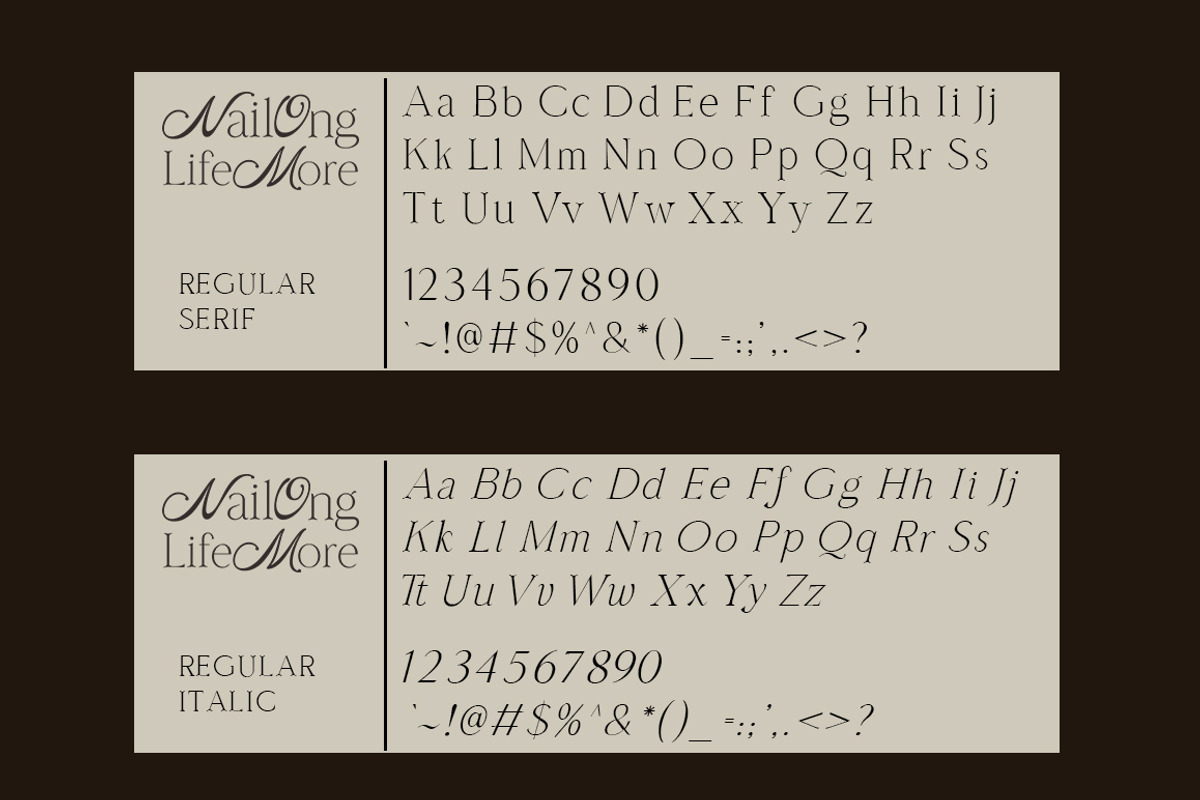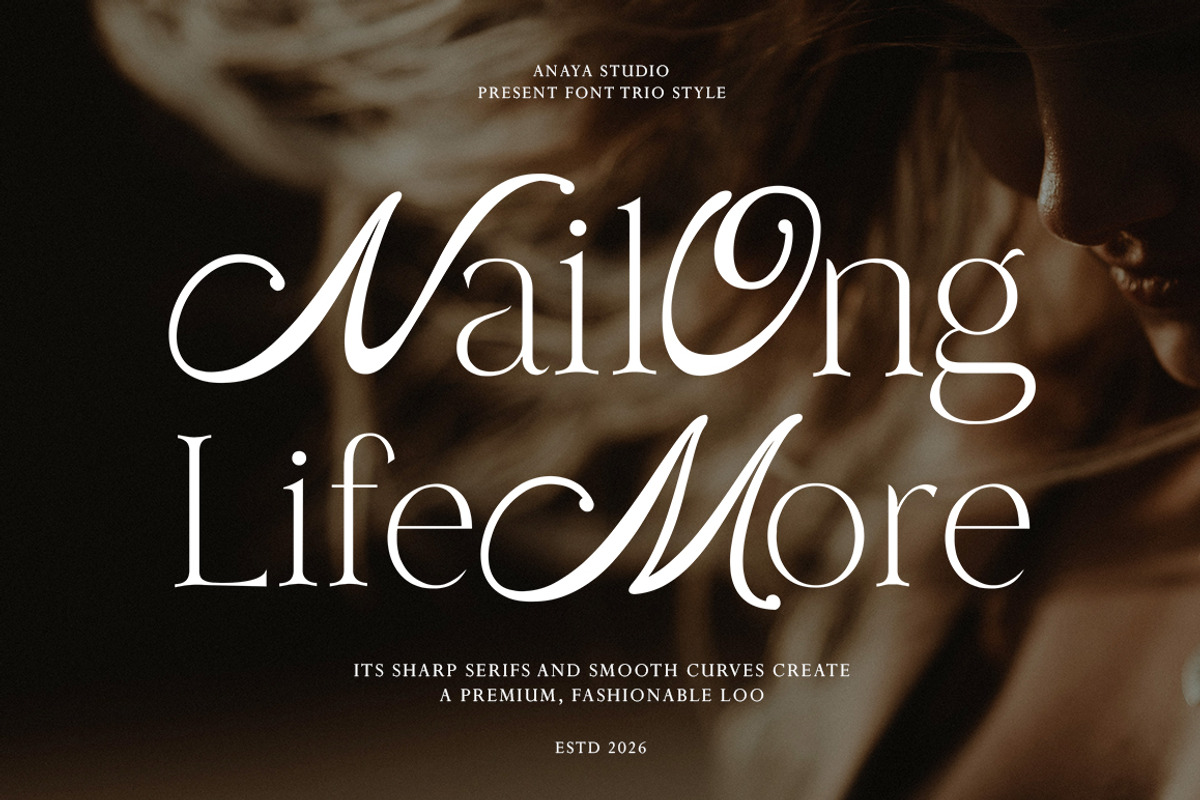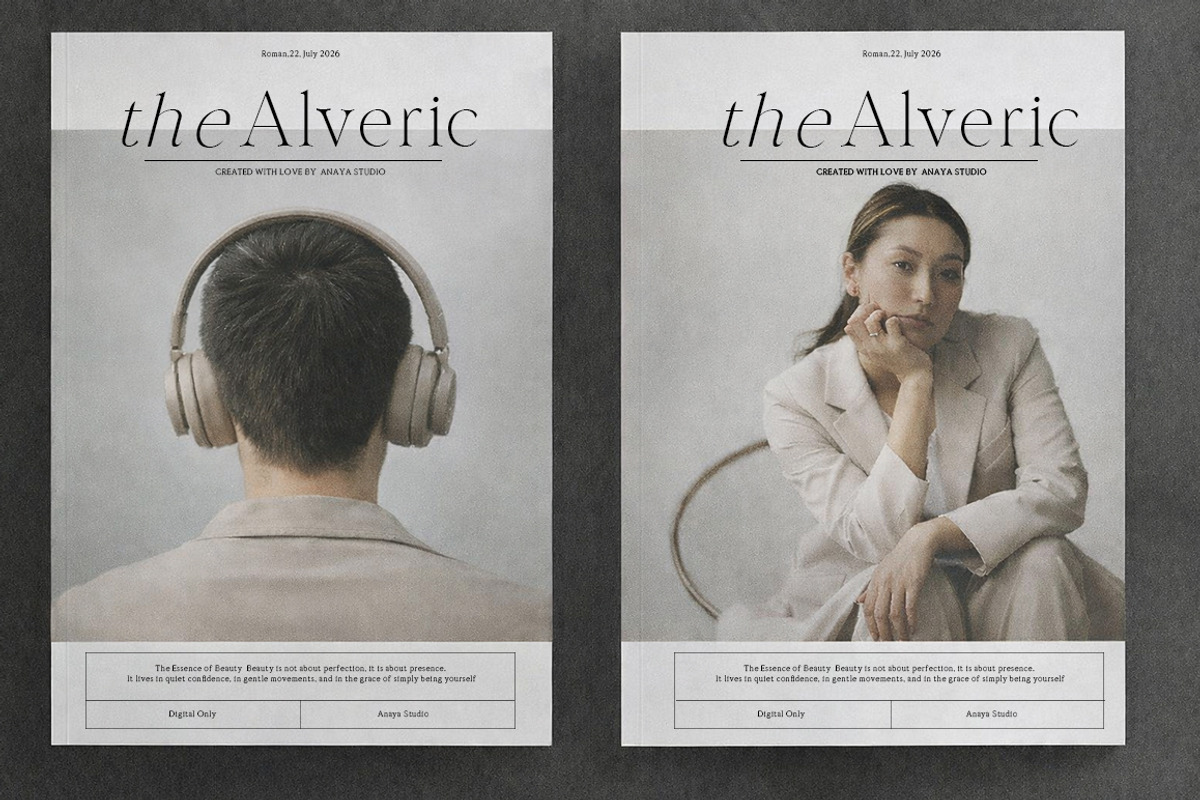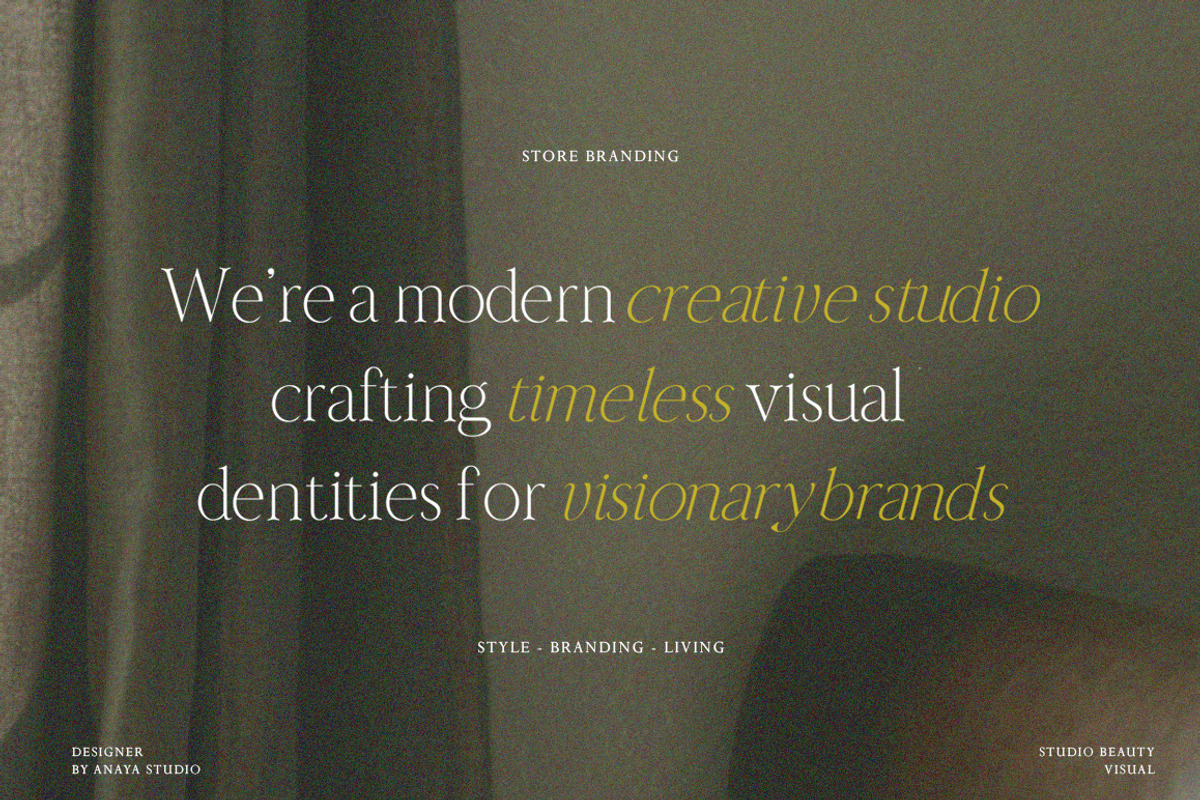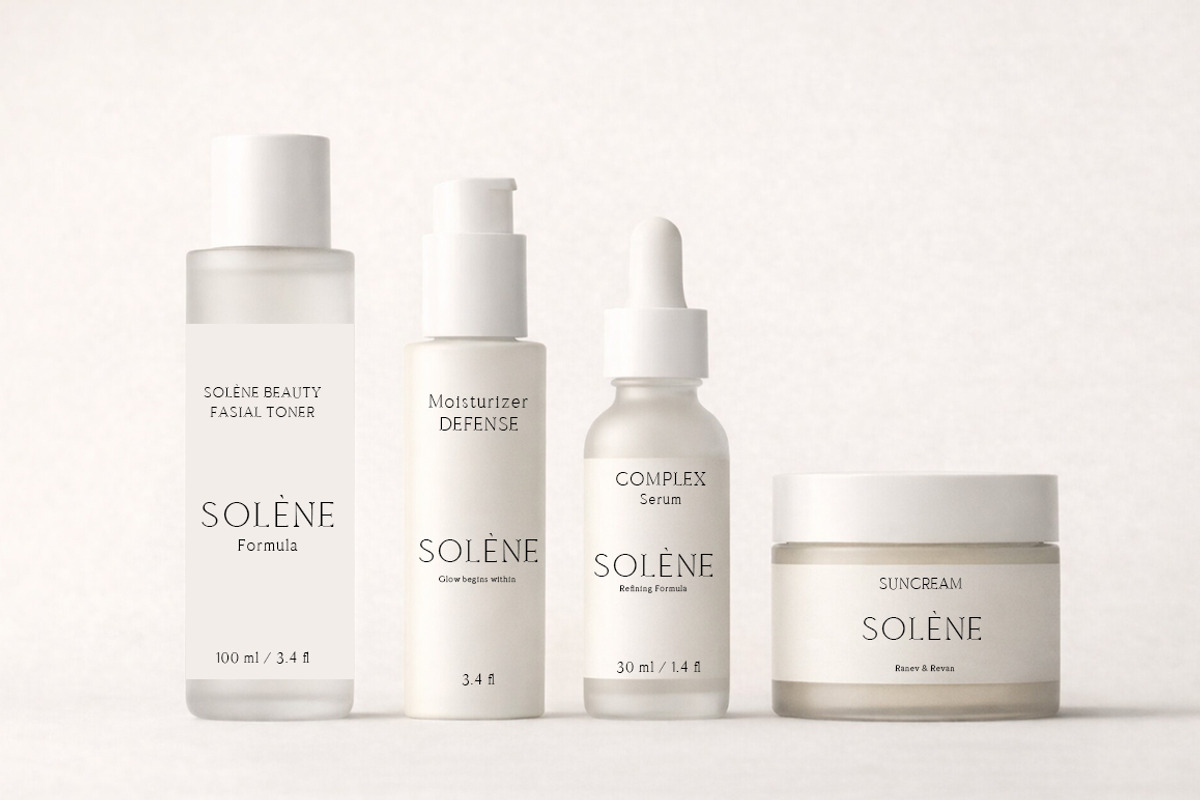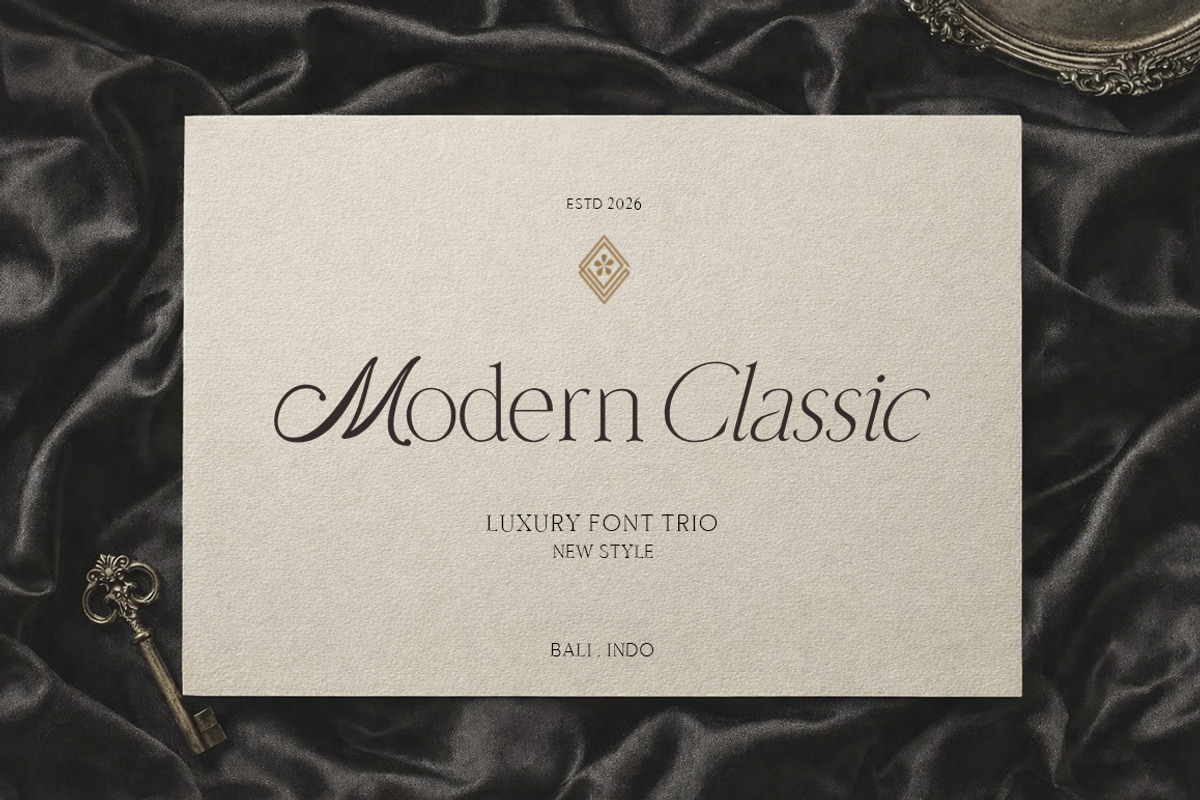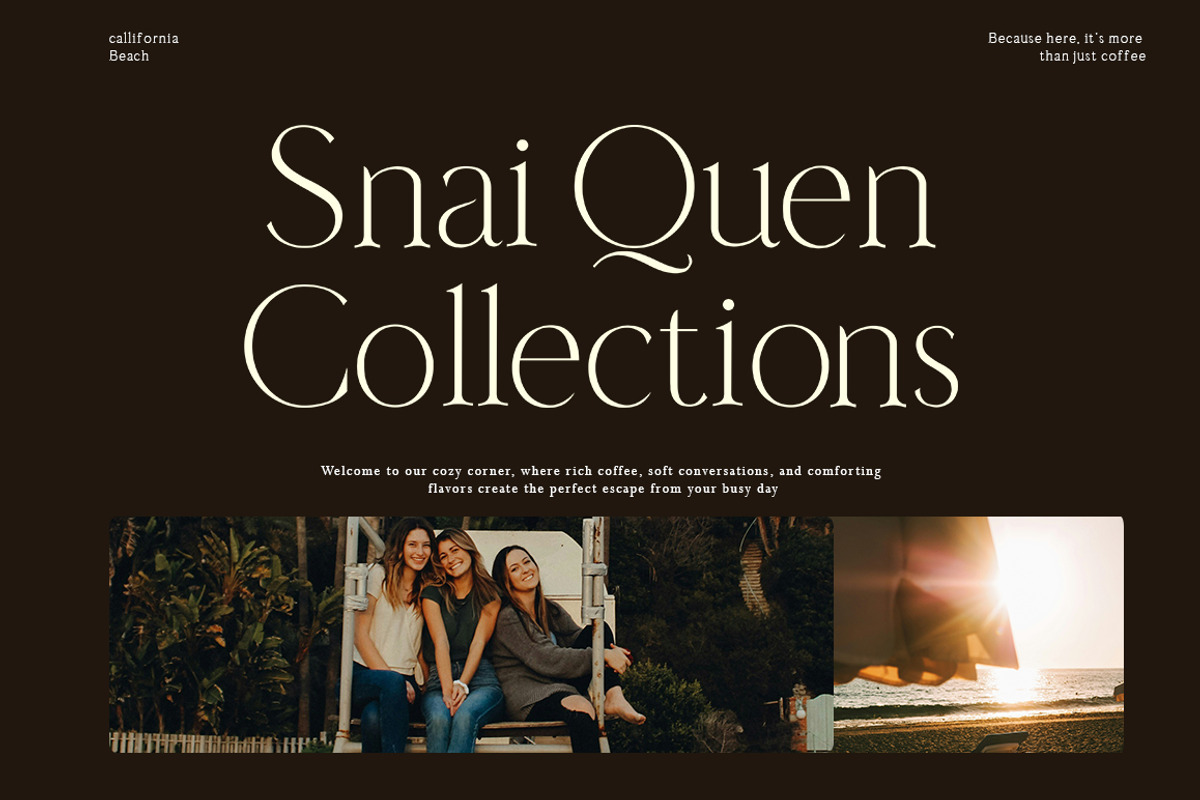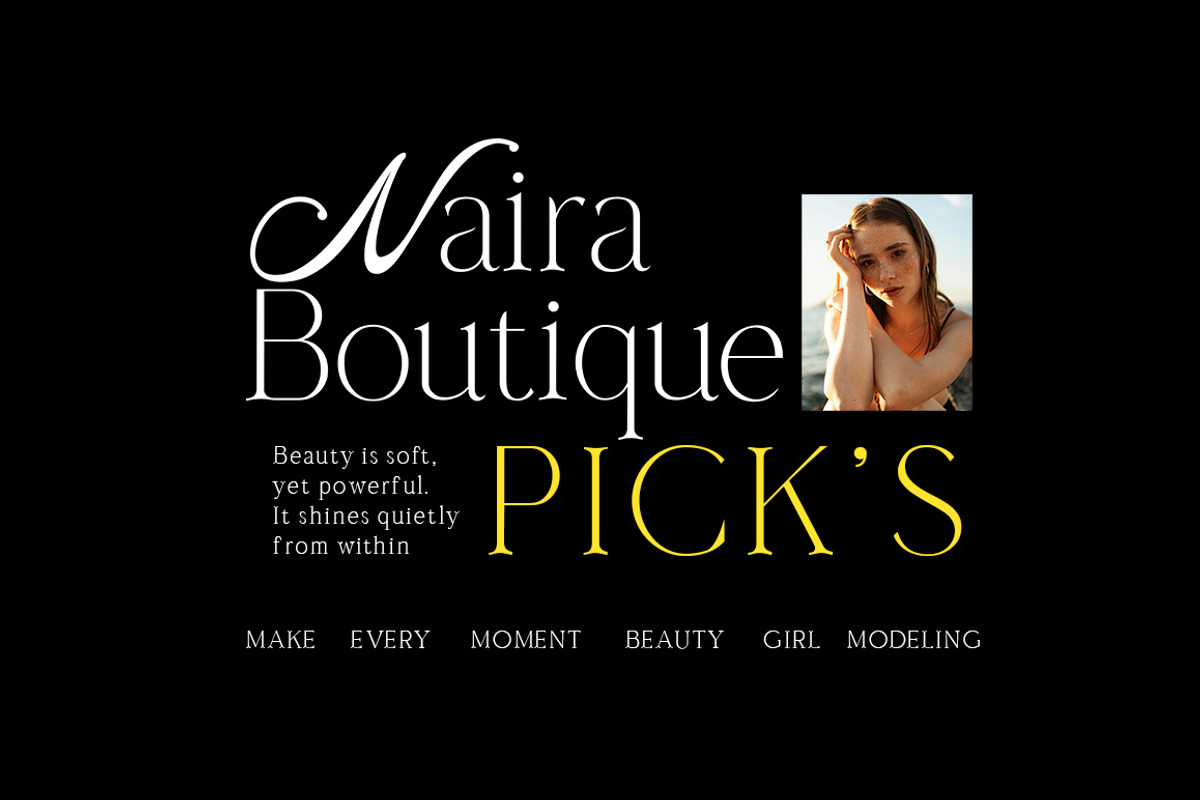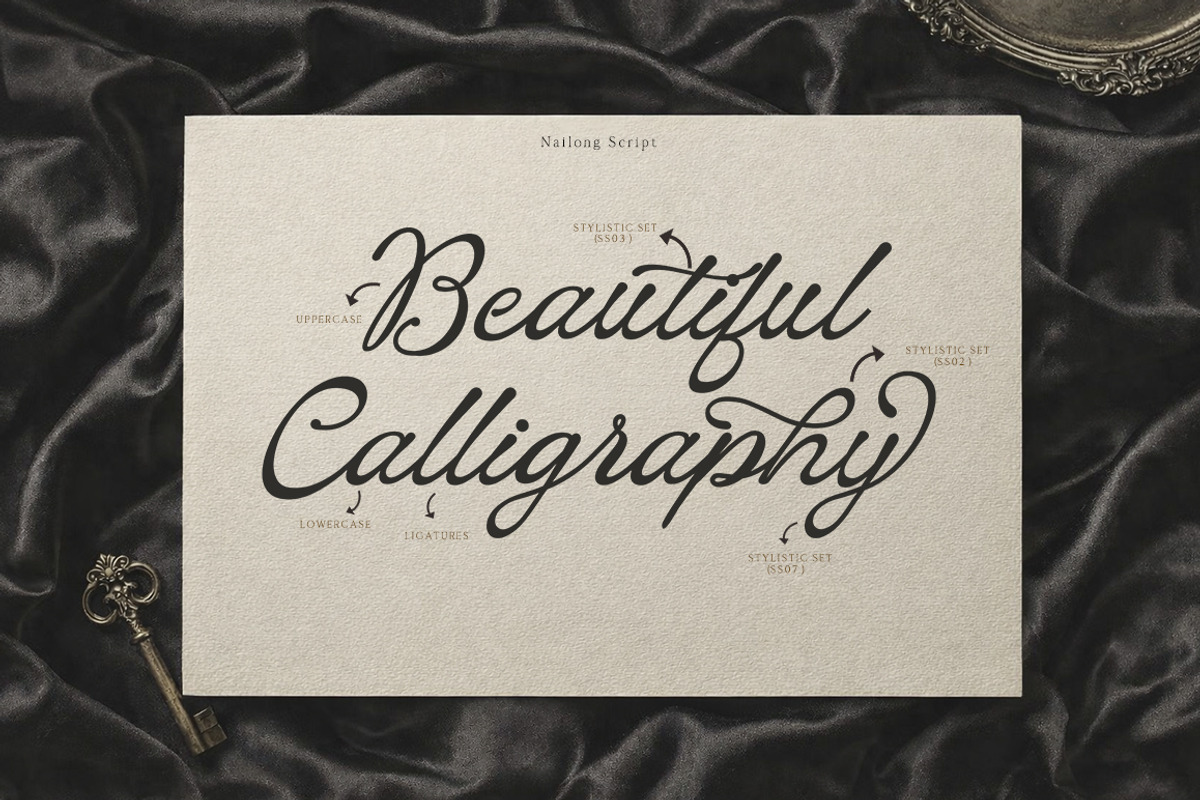
Nailong Lifemore
Nailong LifeMore is a refined serif typeface crafted to embody elegance, confidence, and timeless beauty. Designed with sharp, graceful serifs and flowing curves, this font brings a luxurious yet modern character to every composition.
Its harmonious balance between bold structure and delicate details creates a sophisticated visual presence — perfect for branding, fashion editorials, luxury packaging, wedding invitations, logos, and high-end design projects.
Every letterform is thoughtfully shaped to deliver a premium aesthetic, allowing your message to stand out with class and distinction.
Nailong LifeMore is not just a font — it’s a statement of style, beauty, and elevated design.